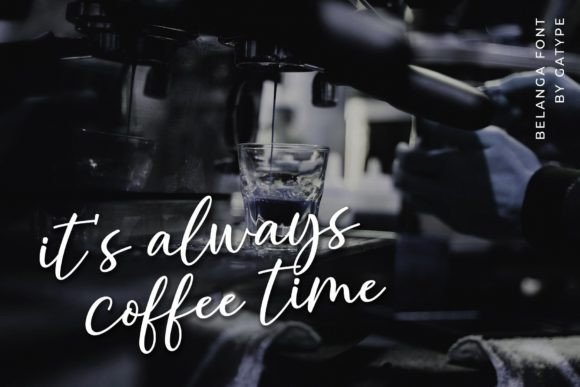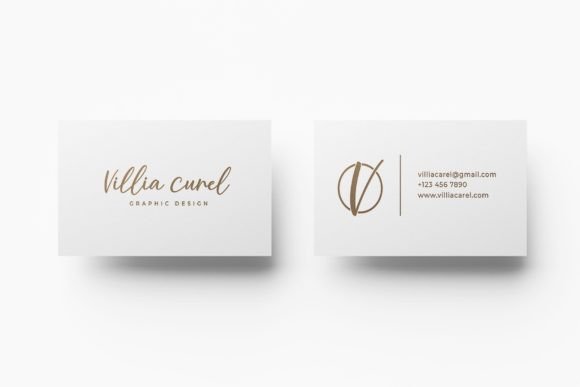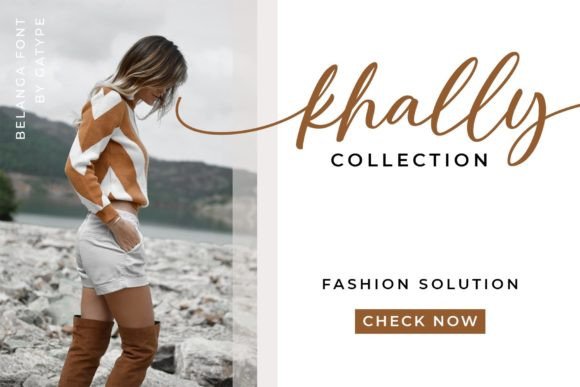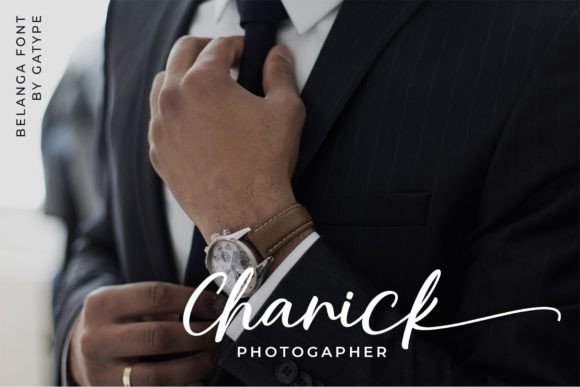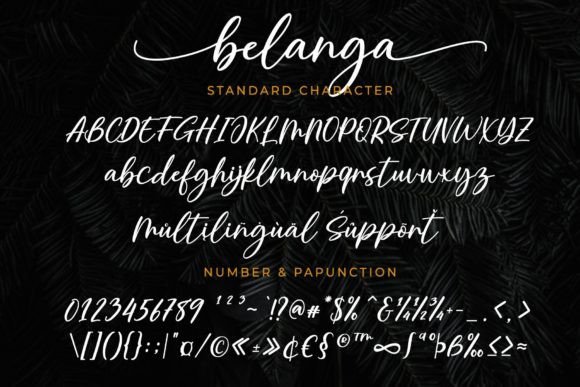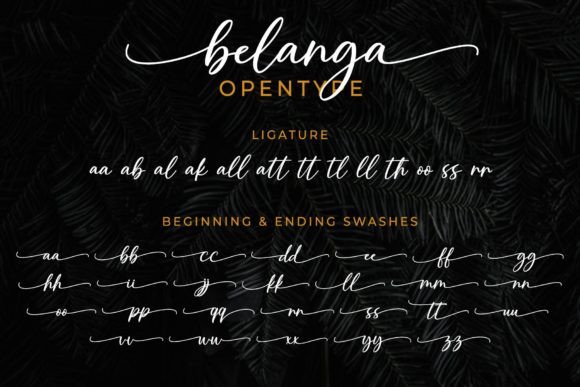
The Belanga Font: A Designer’s New Best Friend
I’ll never forget the time I was working on a project for a client who wanted a elegant and sophisticated look. I had spent hours browsing through font libraries, but nothing seemed quite right. That was when I stumbled upon the Belanga font. Its smooth, flowing lines and beautifully balanced characters immediately caught my eye. I knew right then and there that it was the perfect fit for my project.
So, what do I love about the Belanga font? Here are a few things that make it stand out:
• Smooth and elegant lines: The Belanga font has a luxurious feel to it, making it perfect for high-end designs.
• Beautifully balanced characters: Each letter is carefully crafted to create a sense of harmony and flow.
• PUA encoded: This means that you can access all of the glyphs and swashes with ease, giving you even more creative freedom.
Of course, no font is perfect, and there are a few small quirks to be aware of:
• 🤔 Limited use in very small sizes: While the Belanga font is beautiful at larger sizes, it can become a bit blurry when used at very small sizes.
• ⚠️ Some swashes may not work well with all languages: While the font is PUA encoded, some swashes may not work well with languages that use non-Latin scripts.
The Story Behind the Belanga Font
The Belanga font was designed by a team of typographers who wanted to create a font that was both elegant and accessible. Inspired by traditional calligraphy, the Belanga font is designed to be versatile and easy to use. Whether you’re a designer, crafter, or creative hobbyist, the Belanga font is a great addition to your font library.
What is the Belanga font? The Belanga font is a smooth, elegant, and flowing handwritten font designed for creative projects.
Is the Belanga font PUA encoded? Yes, the Belanga font is PUA encoded, which means you can access all of the glyphs and swashes with ease.
What type of designs is the Belanga font best suited for? The Belanga font is versatile and can be used for a wide range of designs, from elegant and sophisticated to playful and creative.